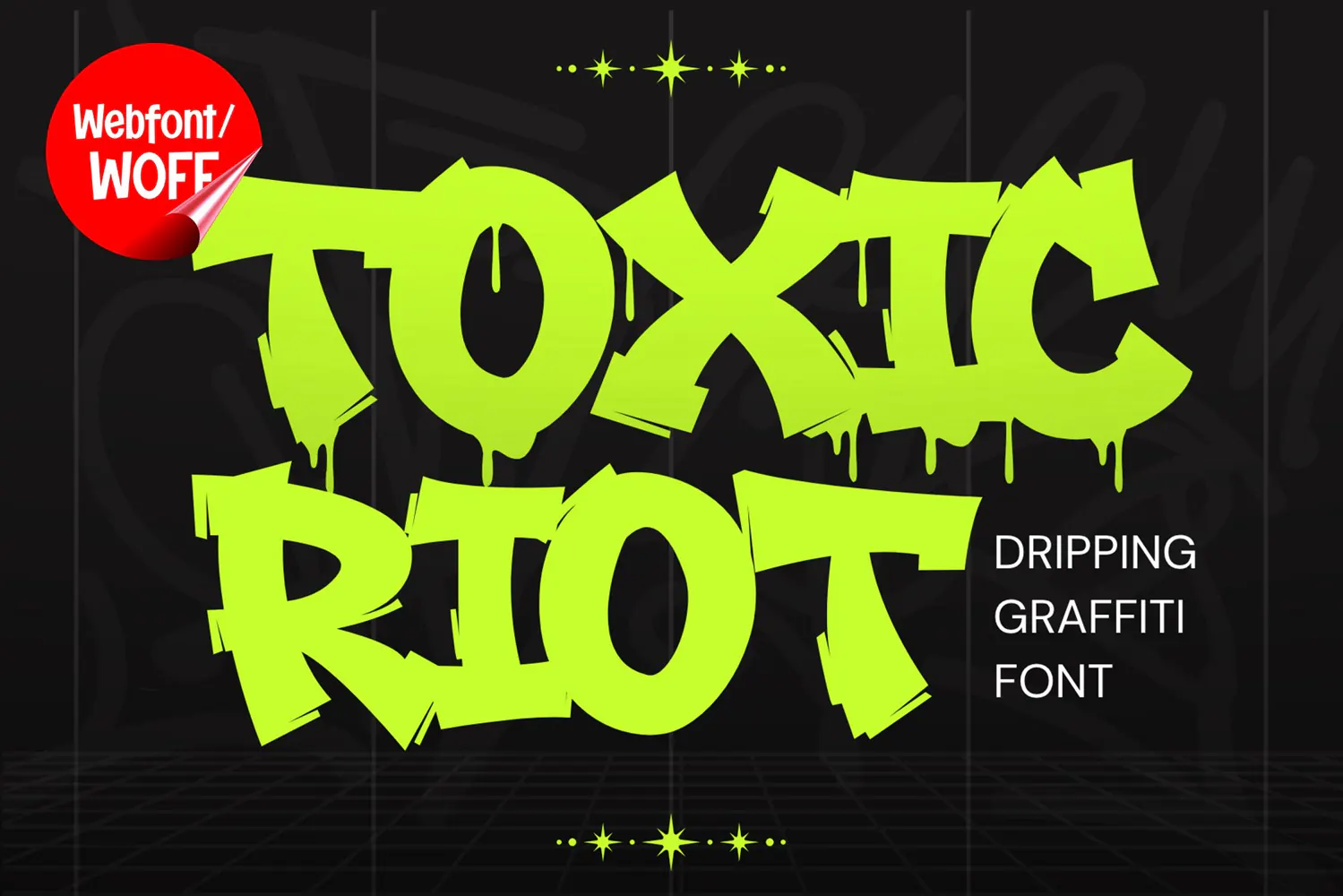
Toxic Riot Webfont Dripping Graffiti Display Font
Bring a bold urban attitude to your digital projects with Toxic Riot Webfont, a powerful display typeface inspired by graffiti, dripping paint, streetwear culture, and underground aesthetics.
Toxic Riot combines heavy, angular letterforms with rough edges and distinctive drip details, creating a raw and rebellious appearance that immediately captures attention. Its strong display character makes it ideal for website headlines, landing pages, streetwear stores, gaming websites, music platforms, event pages, digital campaigns, portfolios, and creative brand identities.
The bold silhouette works particularly well in large-scale digital typography such as hero sections, website titles, promotional banners, campaign graphics, and online merchandise branding. The dripping details add a liquid paint effect that gives the typeface an energetic street-art personality.
Designed for digital applications, Toxic Riot Webfont allows you to bring its distinctive graffiti aesthetic directly into web-based projects. It is especially suitable for brands and creatives looking for typography that feels urban, edgy, youthful, rebellious, and visually expressive.
Use Toxic Riot for streetwear websites, hip-hop and music projects, gaming communities, graffiti-inspired brands, underground events, digital posters, online stores, and modern urban campaigns.